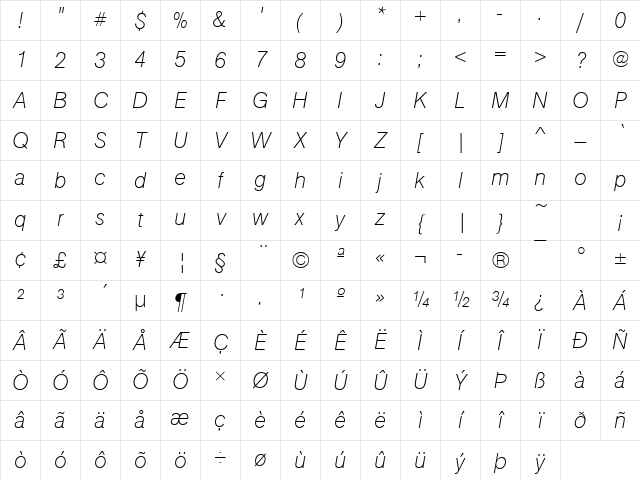
URWAccidaliaBucTUltLig Italic
URWAccidaliaBucTUltLig Family
Complete URWAccidaliaBucTUltLig Italic glyph index. Displaying only characters natively supported by URWAccidaliaBucTUltLig Italic font.
Design Context for URWAccidaliaBucTUltLig
URWAccidaliaBucTUltLig is a composed and adaptable typeface that performs quietly and consistently across a wide range of design contexts. The slanted form adds forward momentum and visual energy.
Pro Tip: Use URWAccidaliaBucTUltLig for emphasis, pull quotes, and subheadings where its slanted energy can add rhythm to the layout.